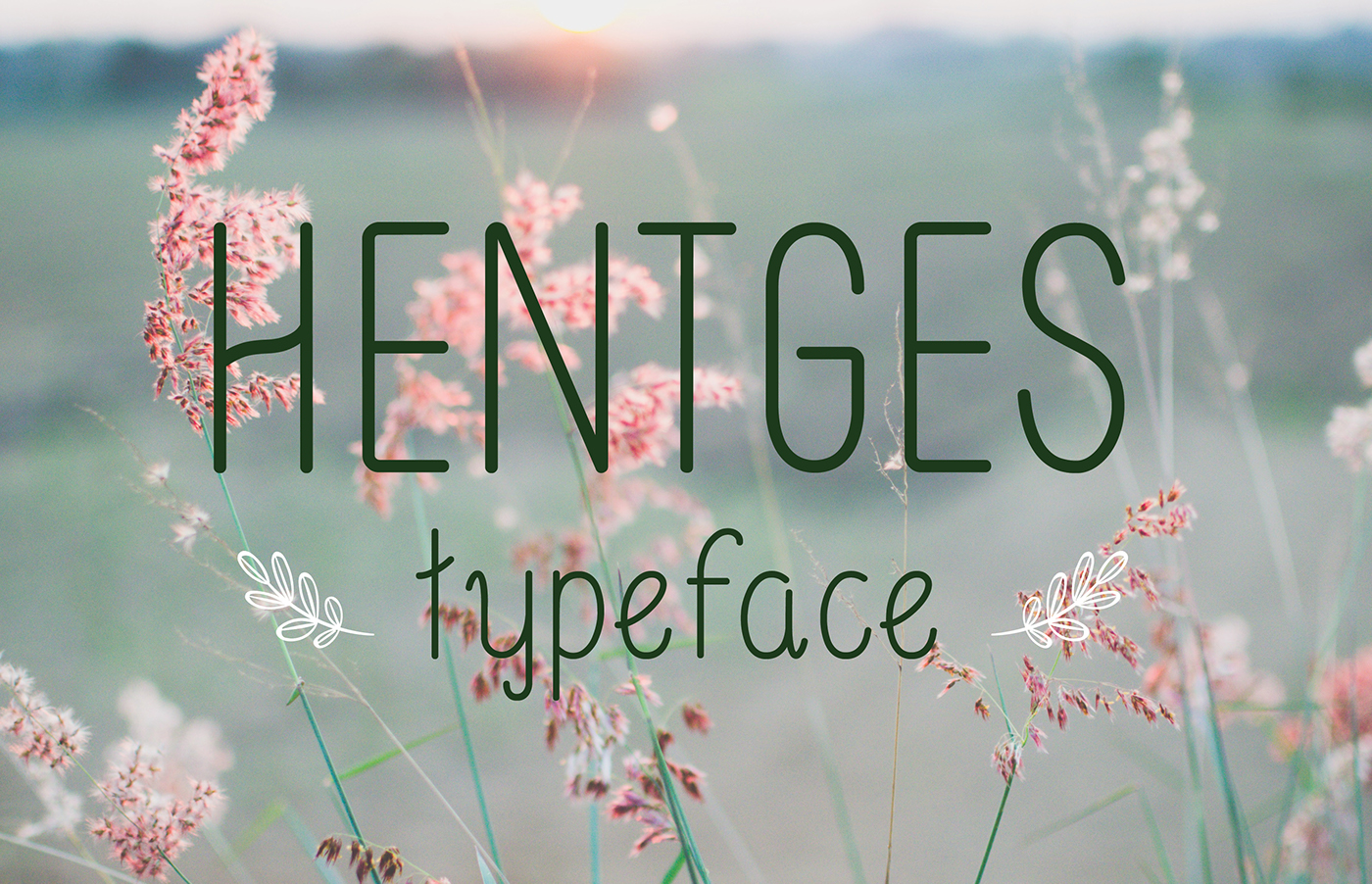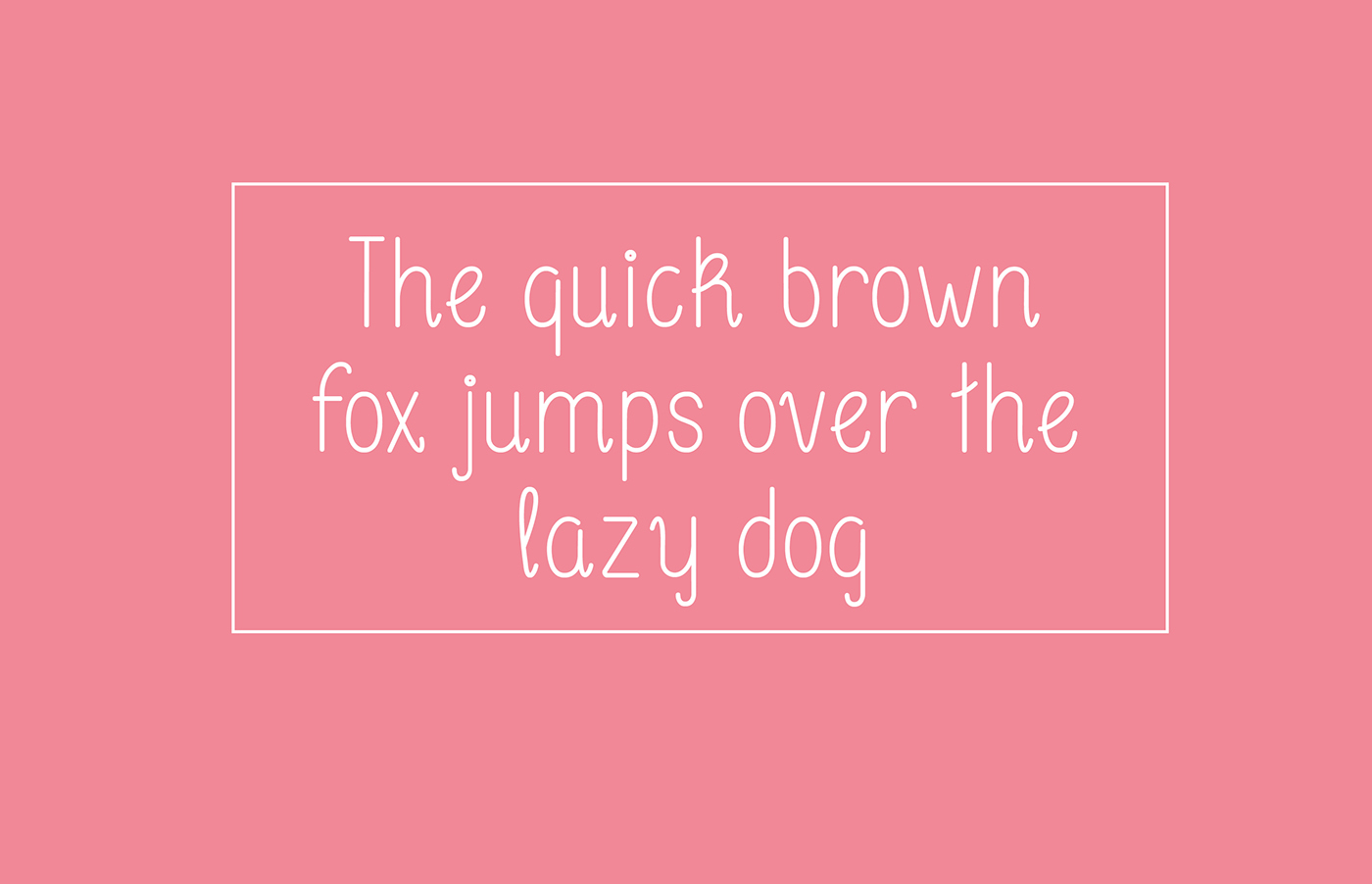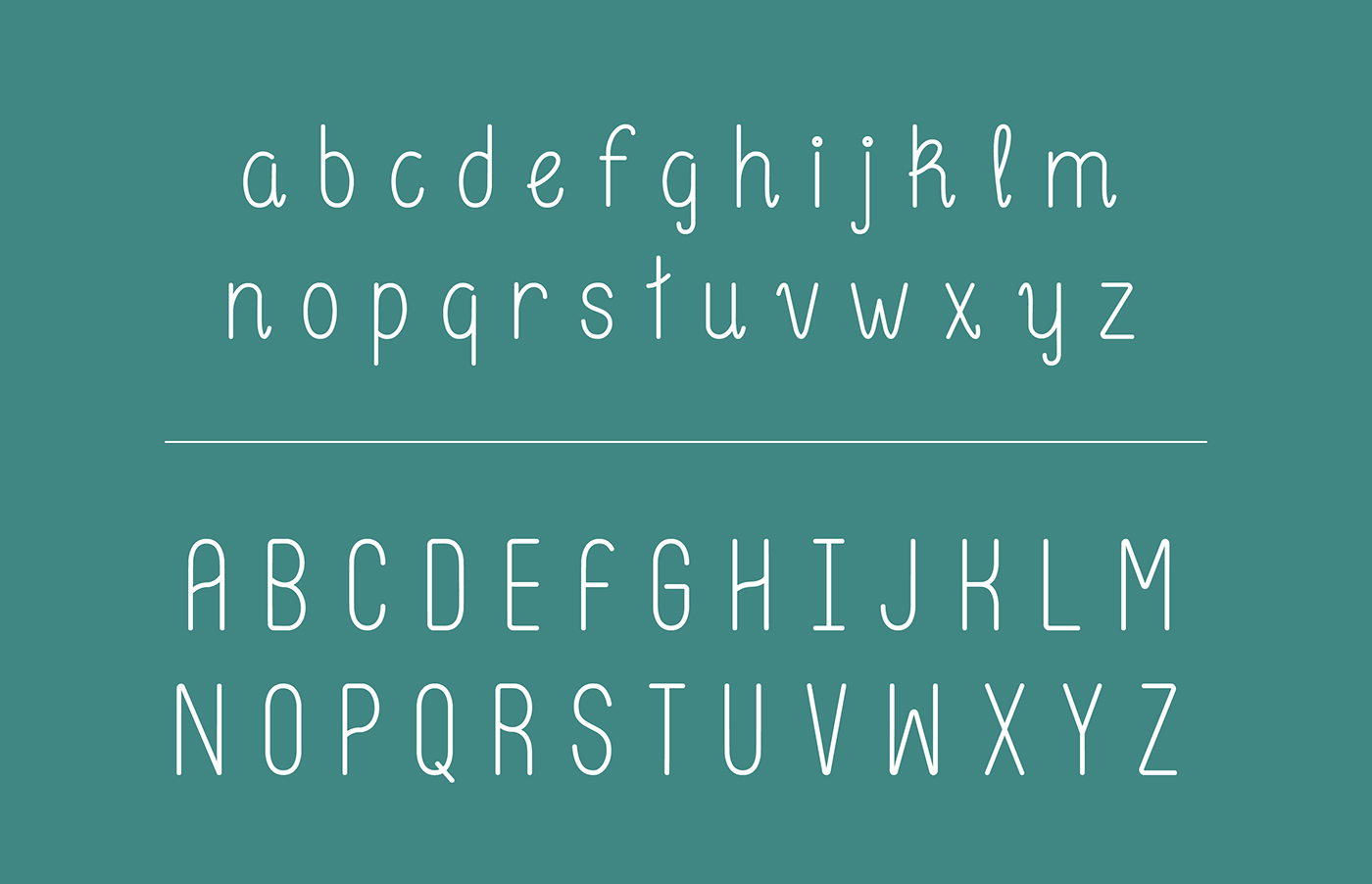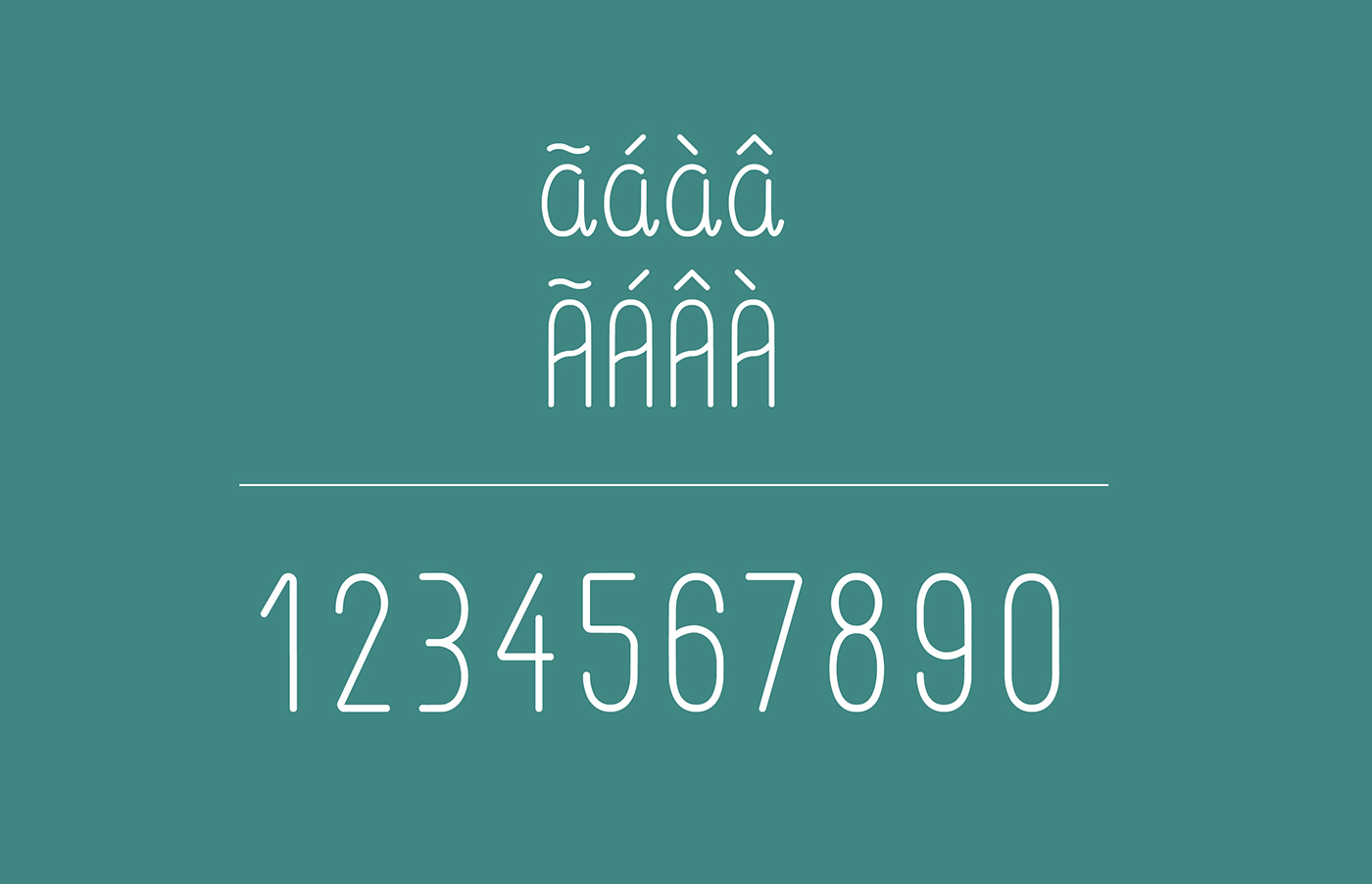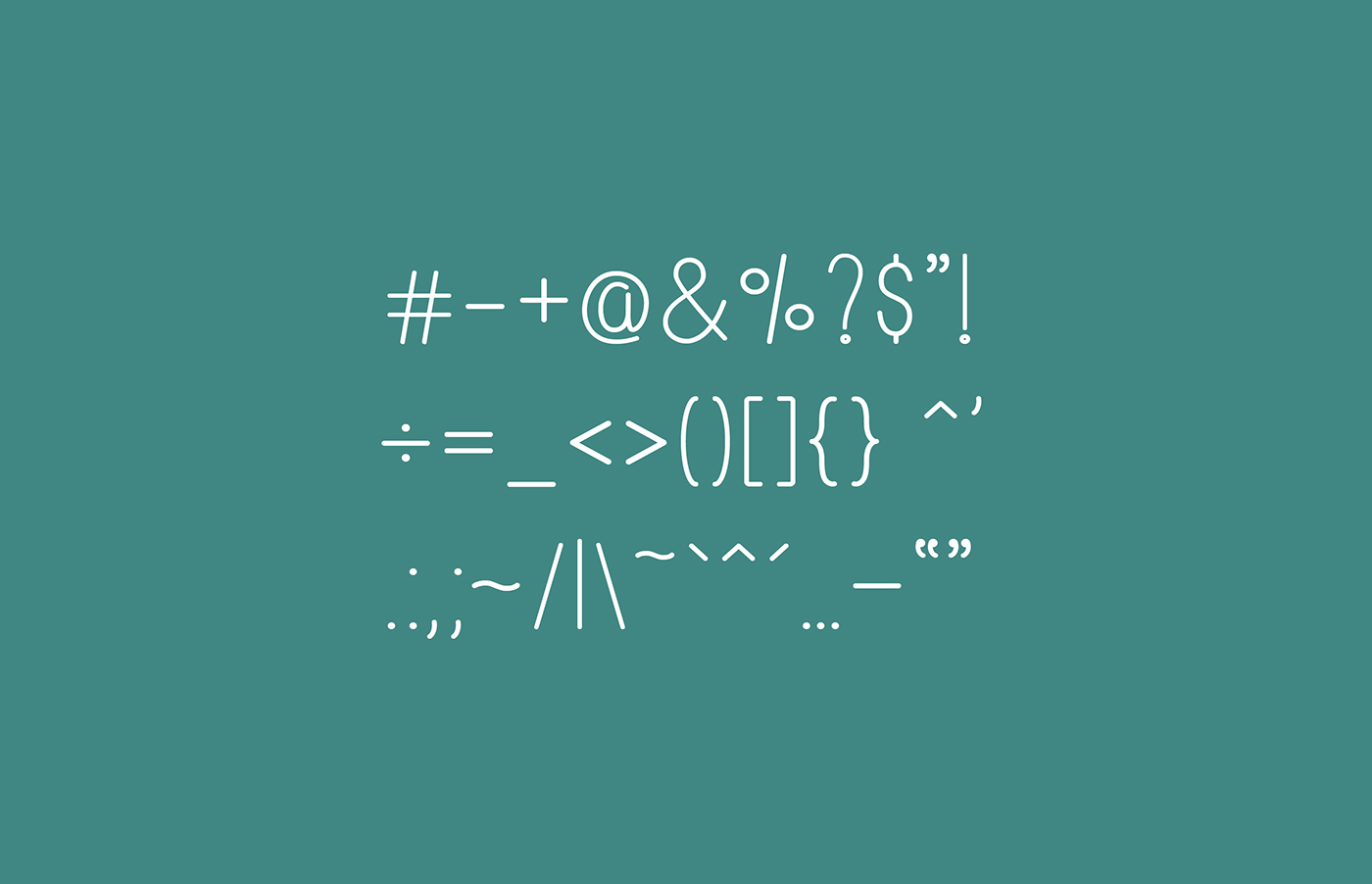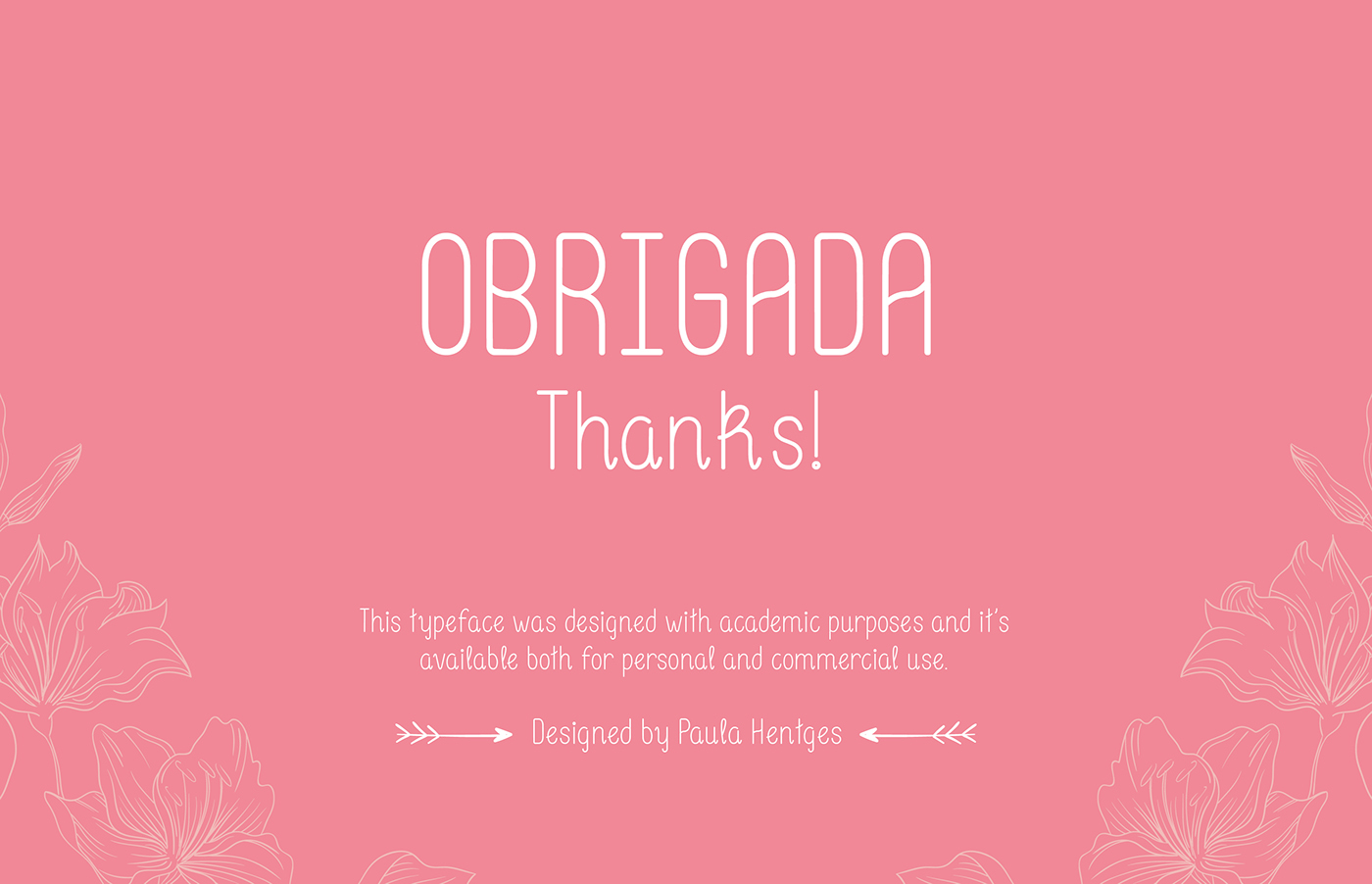
Hentges Typeface was designed by Paula Hentges from Porto Alegre, Brazil. This typeface is a great choice for creating sophisticated works such as wedding invitations, headings and signatures, as well as various other projects from signs to labels to posters. May be used for personal or commercial projects.